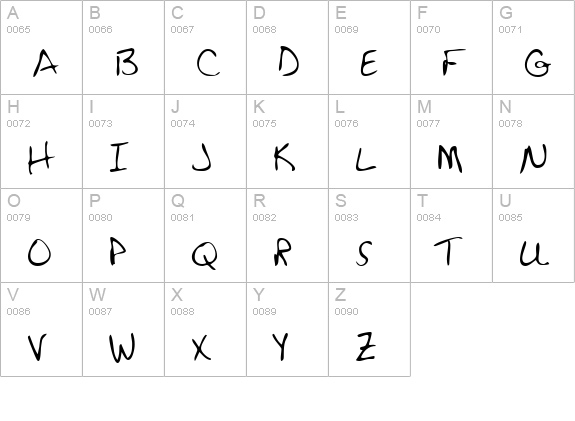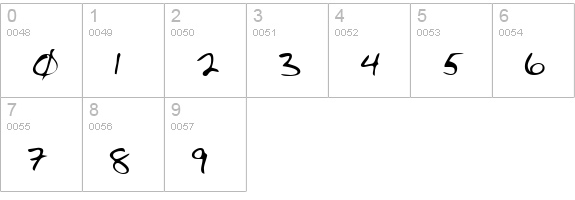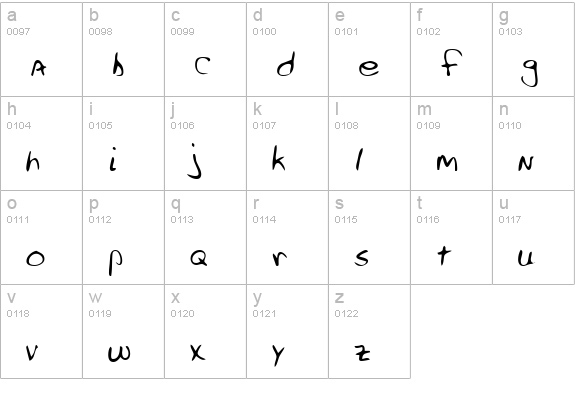
SandysHand Regular Font Details
SandysHand Regular is the standard, neutral variant in the SandysHand typeface family \xE2\x80\x94 well suited to general body text, paragraphs, and standard typographic work.
SandysHand Regular font is a stunningly elegant typeface that exudes a sense of sophistication and charm. Its smooth and flowing letterforms captivate the eye and create a harmonious balance on any design project. With its gentle curves and graceful strokes, this font is perfect for adding a touch of elegance to wedding invitations, branding materials, logos, and more. What makes SandysHand Regular font even more remarkable is that it is available for free! Yes, you read that right. This extraordinary font is freely available to download at FontsMarket.com. With just a few clicks, you can have this beautiful font at your fingertips, ready to enhance your creative endeavors. Whether you're a professional designer looking to elevate your projects or an individual with a passion for creating visually stunning content, SandysHand Regular font is the perfect choice. Its versatility allows it to seamlessly adapt to various design styles and purposes, making it a must-have in any font collection. With SandysHand Regular font, you can effortlessly add a touch of elegance and sophistication to your creations. Its timeless appeal and impeccable craftsmanship will make your designs stand out from the crowd. So why wait? Head over to FontsMarket.com and download SandysHand Regular font for free today!